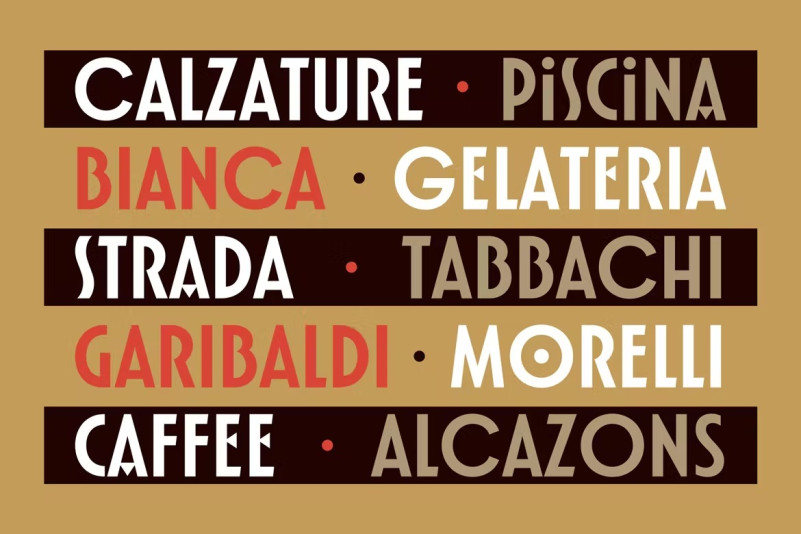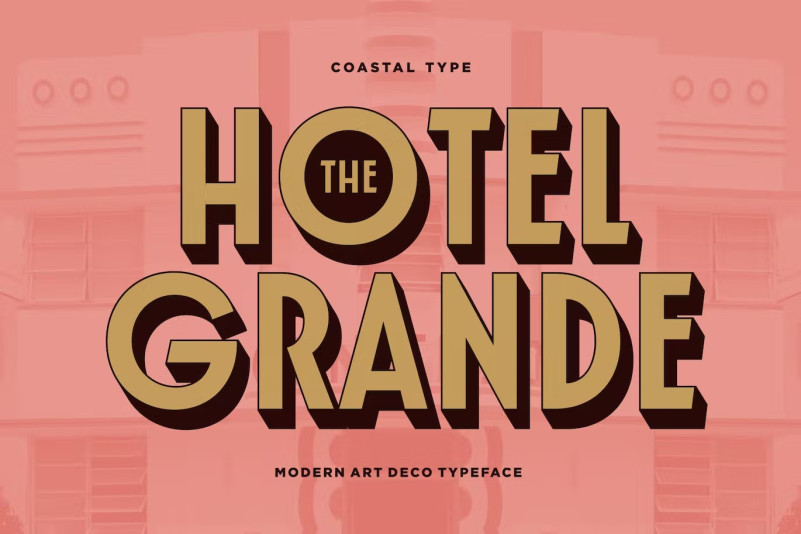
The Hotel Grande Font
The Hotel Grande Font is inspired by art deco and Italian brands. This display font features clean and simple letterforms that look modern while having a retro and art-deco flair. Fiorent Deco is a great choice for titles, logos and branding. This is an all-caps display font with some cool alternatives, including an alternate S that instantly gives your copy a retro-deco look. The poster was inspired by Italian cuisine and design. This range is ideal for food packaging and branding, as well as restaurant or cafe menus and branding.